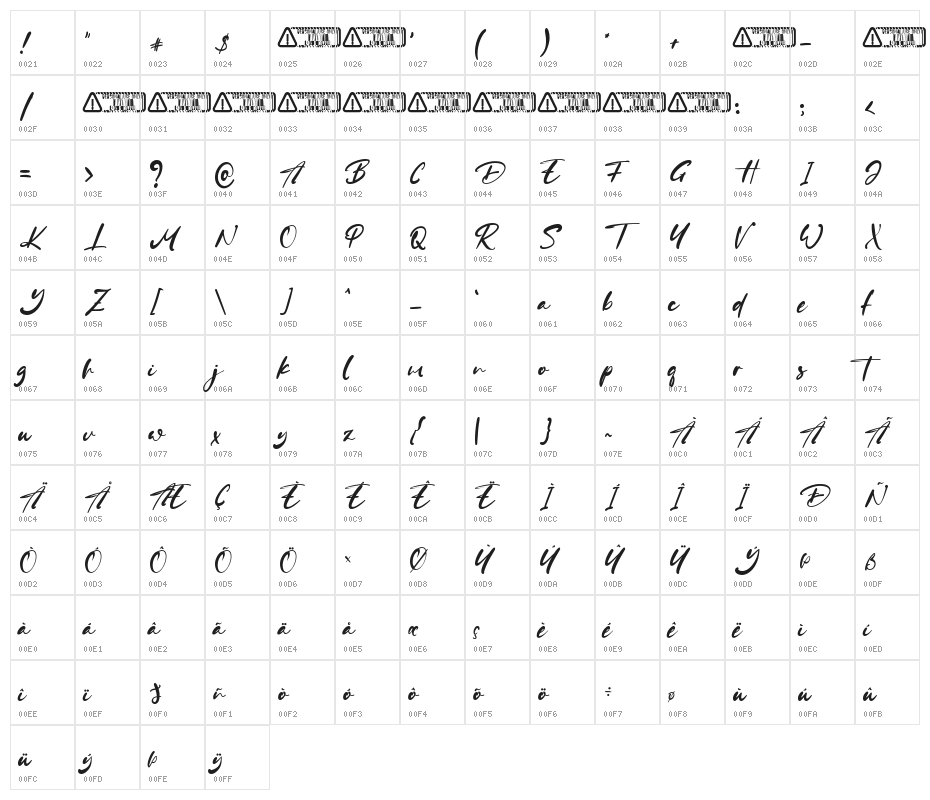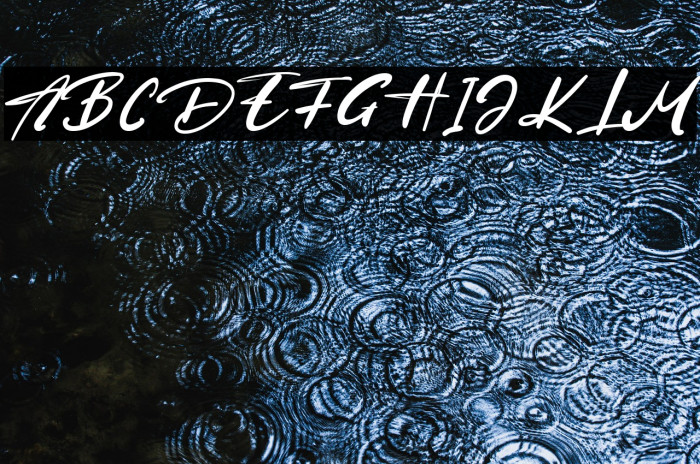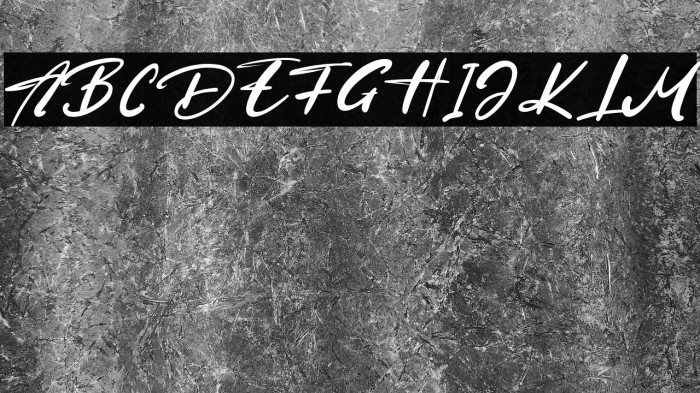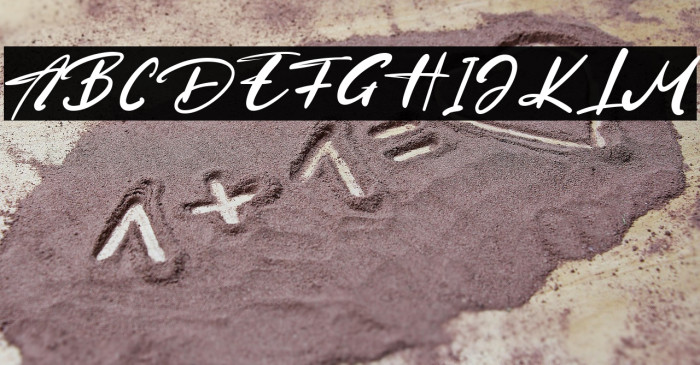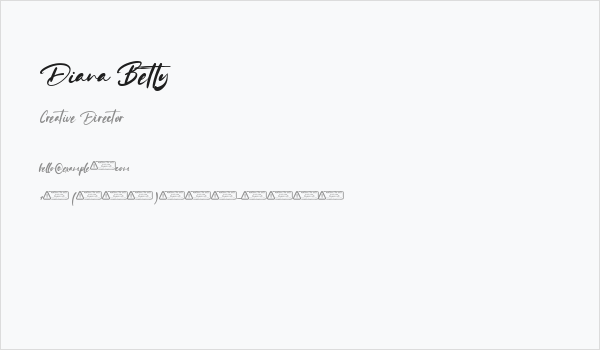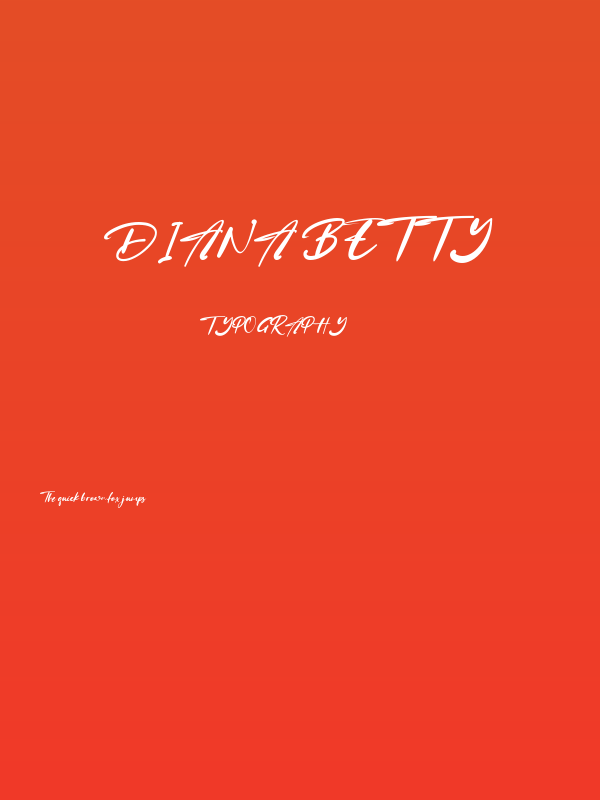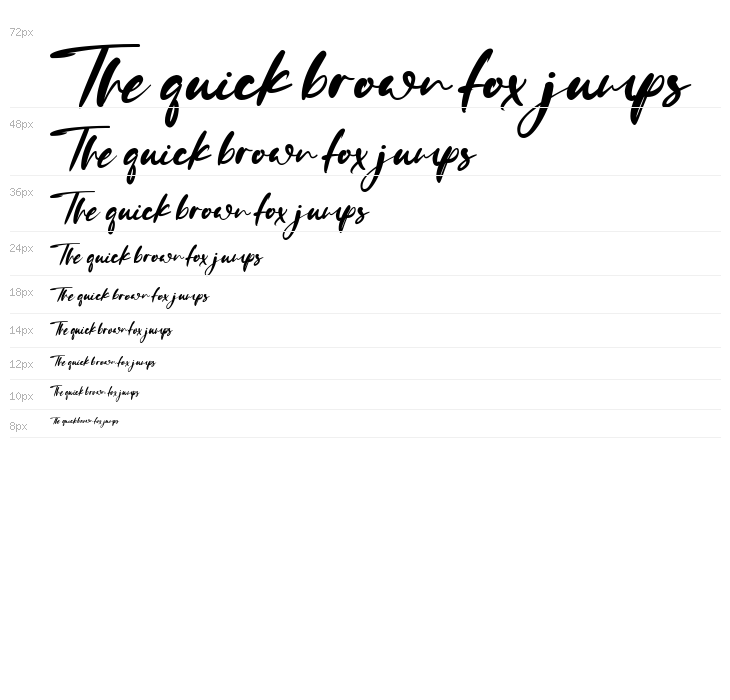
Diana Betty Font
Diana Betty Description
This font features a dynamic and expressive script style, characterized by its fluid, handwritten appearance. The uppercase letters are bold and slightly slanted, giving a sense of movement and elegance. The lowercase letters maintain a consistent flow, with some characters extending below the baseline, adding to the font's lively nature. The numerals and special characters are designed to complement the overall aesthetic, maintaining the same handwritten feel. This font's unique style makes it stand out, offering a personal touch to any design.
| Proposed Projects | Ideal for wedding invitations, personal branding, greeting cards, and artistic projects requiring a personal touch. |